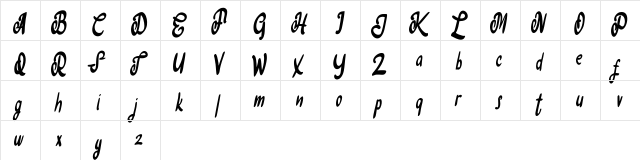
Callgios FREE Regular
Design Context for Callgios FREE Typeface
Callgios FREE is a composed and adaptable typeface that performs quietly and consistently across a wide range of design contexts.